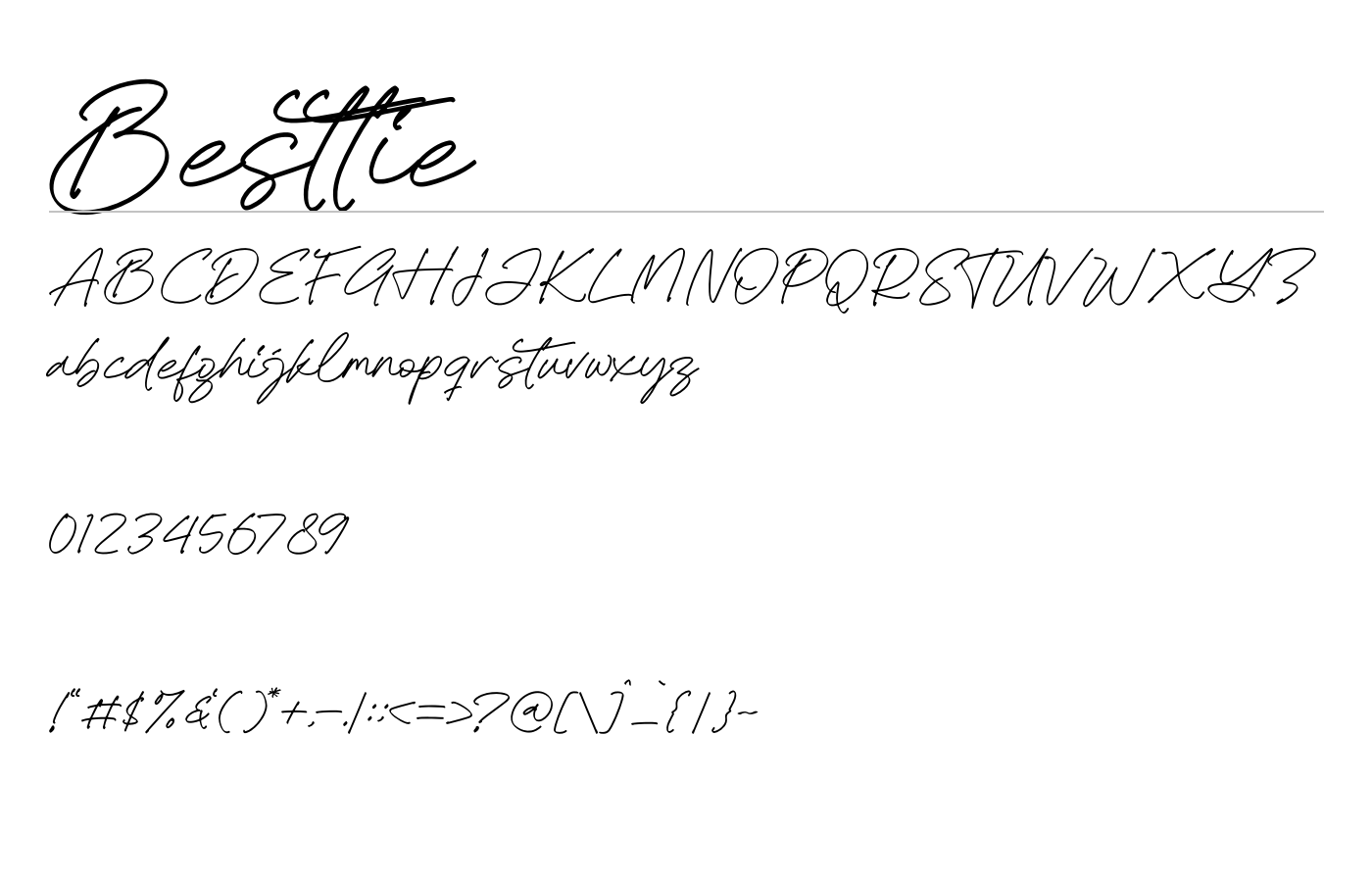
Besttie Font is a delicate and elegant script typeface that mimics natural handwriting with smooth, flowing strokes and a light weight. Its slender and airy letterforms convey a personal, sophisticated charm ideal for invitations, branding, and stylish editorial use where a refined yet approachable look is desired. This font works beautifully for projects that want to express creativity and warmth with a modern handwritten feel.
Besttie Font
About Besttie Font
| Font family | Besttie Font |
| Designer | Nanang Jamaludin |